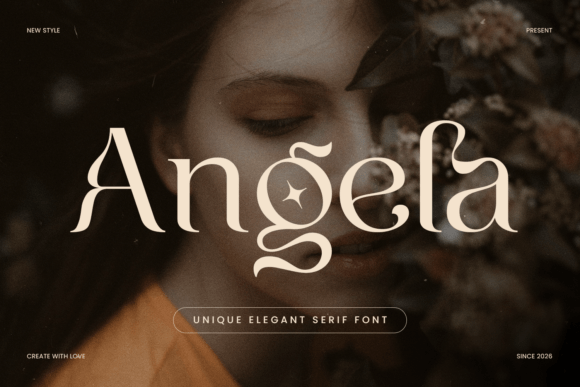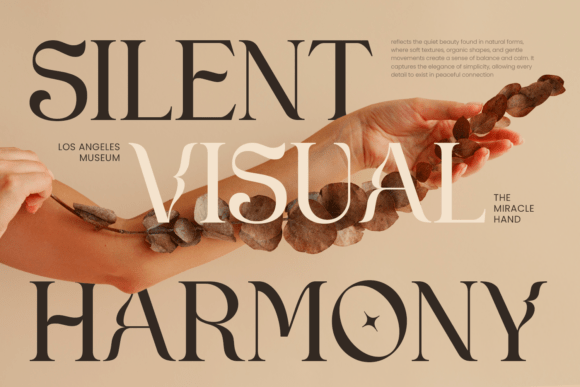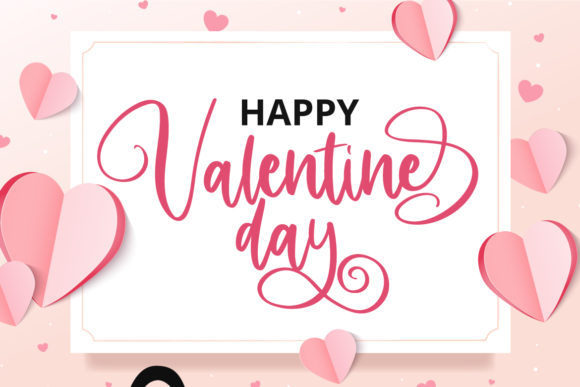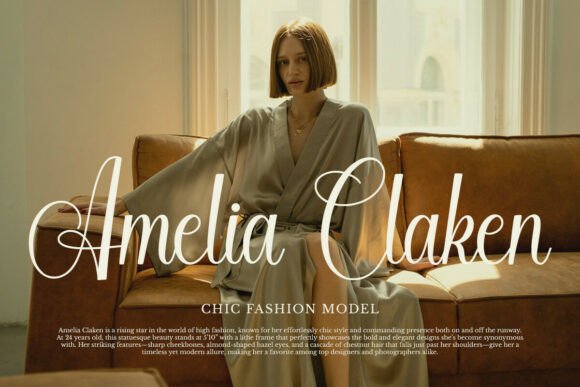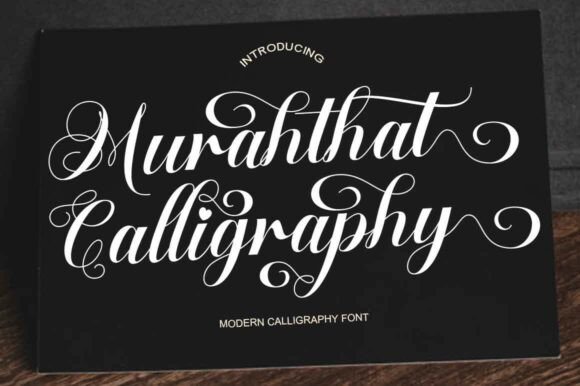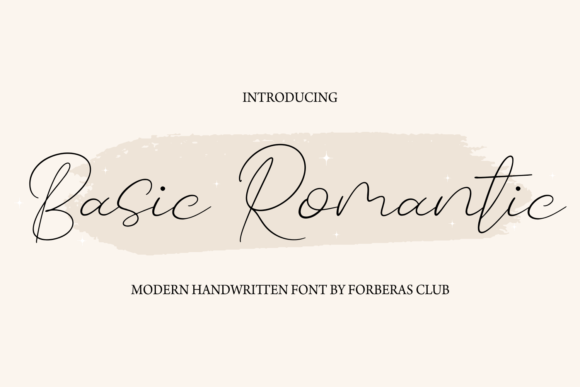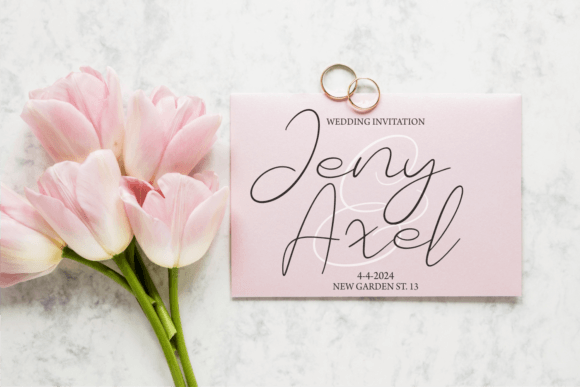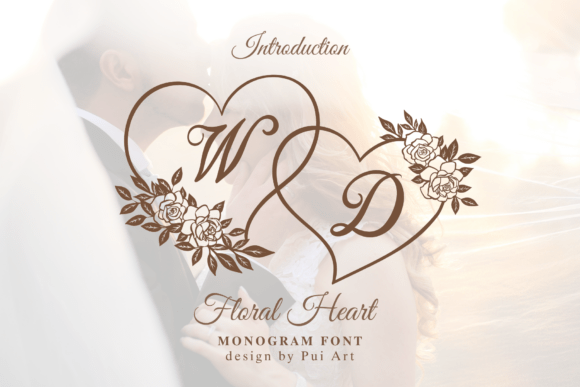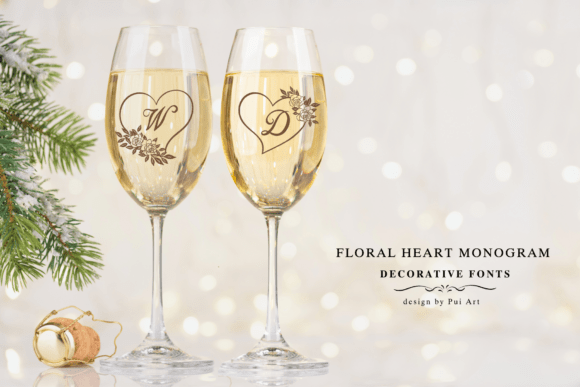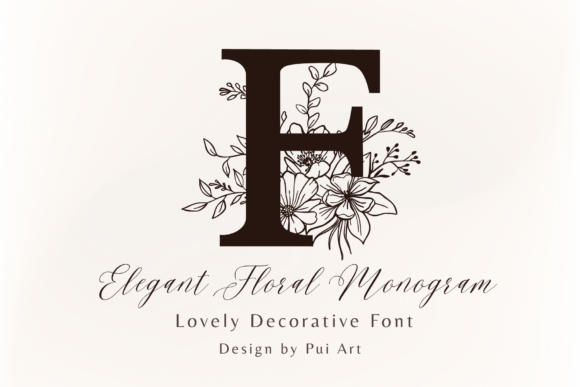
12 Best Cricut Font Styles: The Ultimate Wedding Font Collection
In this curated showcase, we are highlighting the 12 best Cricut font styles that are guaranteed to bring elegance and romantic sophistication to your creative projects. Each selection is incredibly easy to cut and weed, making them perfect for crafters of all skill levels. Let’s dive in and find the perfect typography matches to tell your unique love story!
Billion Font: A Versatile Masterpiece for Your Script Fonts Library
Experience the ultimate creative freedom with Billion, a modern handwritten typeface carefully handcrafted to become an instant favorite in your design library. Boasting a beautiful varying baseline, smooth lines, and gorgeous glyphs, this eye-catching option makes a spectacular addition to your personal collection of Script Fonts. Its casual charm makes it appear wonderfully down-to-earth and highly readable, ensuring your layouts feel organic yet thoroughly polished.
This beautiful style stands out as an incredibly romantic Wedding Font choice, perfect for designing heartfelt wedding stationery, invitation suites, and custom event signage. Furthermore, Billion is PUA encoded with stunning alternates and is fully optimized as a clean-cutting Cricut Font, allowing DIY crafters to easily weed and apply gorgeous custom vinyl decals, greeting cards, and holiday crafts. Add it to your most creative ideas and watch them instantly come alive!
Florine Signature Font: An Elegant Luxury Choice for Your Script Fonts Library
Step into the world of pure refinement with Florine Signature, an exquisitely graceful typeface designed to bring an instant layer of luxury and sophisticated charm to your creative workspace. Representing the pinnacle of elegant handwriting, this gorgeous option makes a spectacular and timeless addition to your personal collection of Script Fonts.
Its delicate strokes and smooth, flowing curves beautifully capture the artistry of custom calligraphy, making it an absolute dream Wedding Font choice for designing romantic marriage stationery, elegant event signage, and heartfelt greeting cards. Beyond digital layouts, Florine Signature is fully optimized as a clean-cutting Cricut Font, allowing DIY crafters to easily weed and apply stunning vinyl decals, custom celebration gifts, and sweet holiday crafts. Add it to your creative arsenal and watch its modern romantic aesthetic bring your most beautiful ideas to life!
Erial Font: A Sophisticated Modern Choice Beyond Standard Sans Serif Fonts
Redefine modern elegance with Erial, an incredibly sophisticated typeface crafted to bring a refined, high-end aesthetic to all of your creative layouts. Seamlessly blending classic charm with a sleek, contemporary edge, this gorgeous design brings a polished look that stands out beautifully as a classy alternative to traditional Sans Serif Fonts.
It shines brilliantly as a premier Wedding Font choice, making it an absolute favorite for designing luxurious event stationery, formal wedding invitations, chic beauty packaging, and elegant corporate logos. Furthermore, Erial is highly versatile and fully compatible across popular platforms, doubling as a clean-cutting Cricut Font that allows DIY crafters to easily execute flawless physical projects, digital planners in Procreate, and stunning Canva graphics alike. Add it to your design toolkit today to instantly elevate your work to the highest level of sophistication!
Angela Font: A High-Fashion Statement for Your Serif Fonts Collection
Transform ordinary text into a striking work of high-fashion art with Angela, a unique and stylish luxury typeface designed to bring a refined, contemporary touch to modern typography. Striking a harmonious balance between smooth, sweeping strokes and elegant ligatures, this stunning selection makes a memorable and expressive addition to your growing library of Serif Fonts. Its charming personality and distinctive characters ensure your layouts look thoroughly polished, artistic, and high-end.
This gorgeous typeface shines brilliantly as a premier Wedding Font choice, perfect for crafting breathtaking marriage invitations, luxury save-the-dates, and sophisticated event stationery. Beyond digital editorial layouts, Angela is highly versatile and fully optimized as a clean-cutting Cricut Font, allowing DIY crafters to easily weed and apply flawless vinyl decals, custom embroidery designs, and handmade wooden signs. Introduce Angela to your creative toolkit today and watch your designs instantly come alive with timeless beauty!
Wedding Font: A Graceful Calligraphy Staple for Your Script Fonts Collection
Celebrate life’s most beautiful milestones with Wedding, an exquisitely styled typeface designed to capture the timeless romance of handcrafted calligraphy. Seamlessly weaving delicate, sweeping lines with modern elegance, this gorgeous selection makes a stunning and indispensable addition to your personal library of Script Fonts.
It is engineered to stand out beautifully as a premier Wedding Font choice, making it an absolute dream for designing luxury save-the-dates, elegant table numbers, custom ceremony programs, and sophisticated wedding stationery. Beyond digital templates, this fluid design is fully optimized as a clean-cutting Cricut Font, allowing passionate DIY creators to effortlessly cut and weed flawless vinyl decals, personalized wedding favors, and keepsake wooden signs. Bring this stunning style into your design toolkit today and watch your special event projects instantly come to life with heartfelt charm!